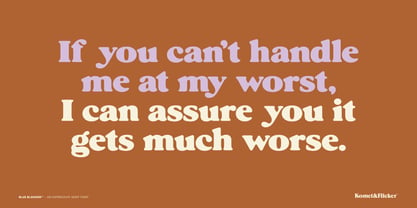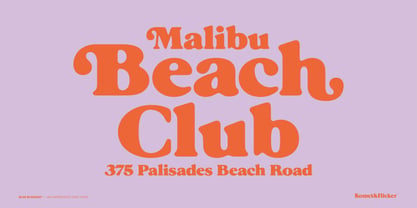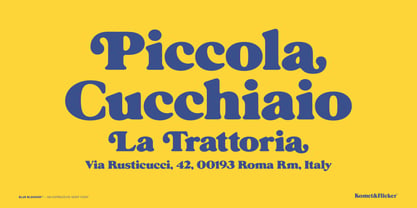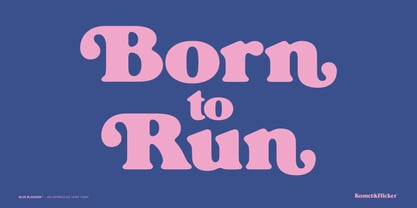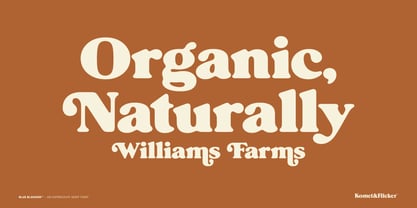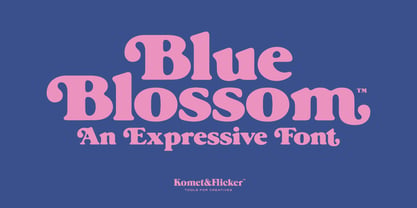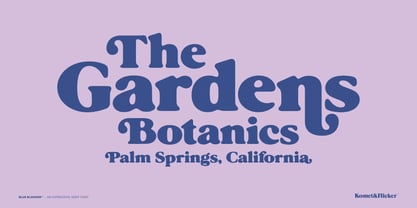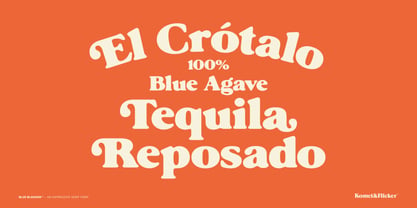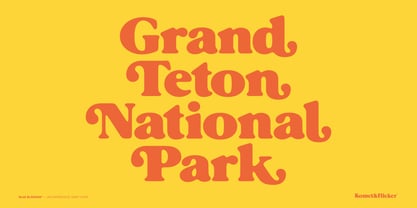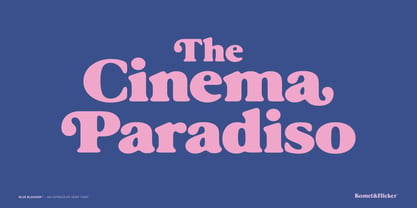
Blue Blossom
The Blue Blossom Font Family was designed by David Phillips and published by Komet & Flicker. Blue Blossom contains 1 styles. More about this family
Introducing Blue Blossom, a charming serif font that blends soft curves with bold personality. Designed to turn heads while keeping things effortlessly elegant, this font features rounded edges and expressive letterforms that give your typography a distinct warmth and confidence.
With a subtle retro vibe, this typeface nods to vintage aesthetics while staying fresh and contemporary making it perfect for branding, packaging, editorial design, and standout social graphics.
Blue Blossom includes a thoughtfully crafted set of 38 alternate uppercase and lowercase glyphs, giving you the freedom to stylize your text with variety and flair. It also comes with 15 custom ligatures, allowing for smooth, stylish connections between characters that elevate your typography from beautiful to unforgettable.
• Full A-Z basic latin characters
• Select European specific characters
• Numbers, punctuation, and select symbols
• Pre-made common fractions
• A set of 38 alternate upper and lowercase character glyphs
• A set of 15 custom ligatures